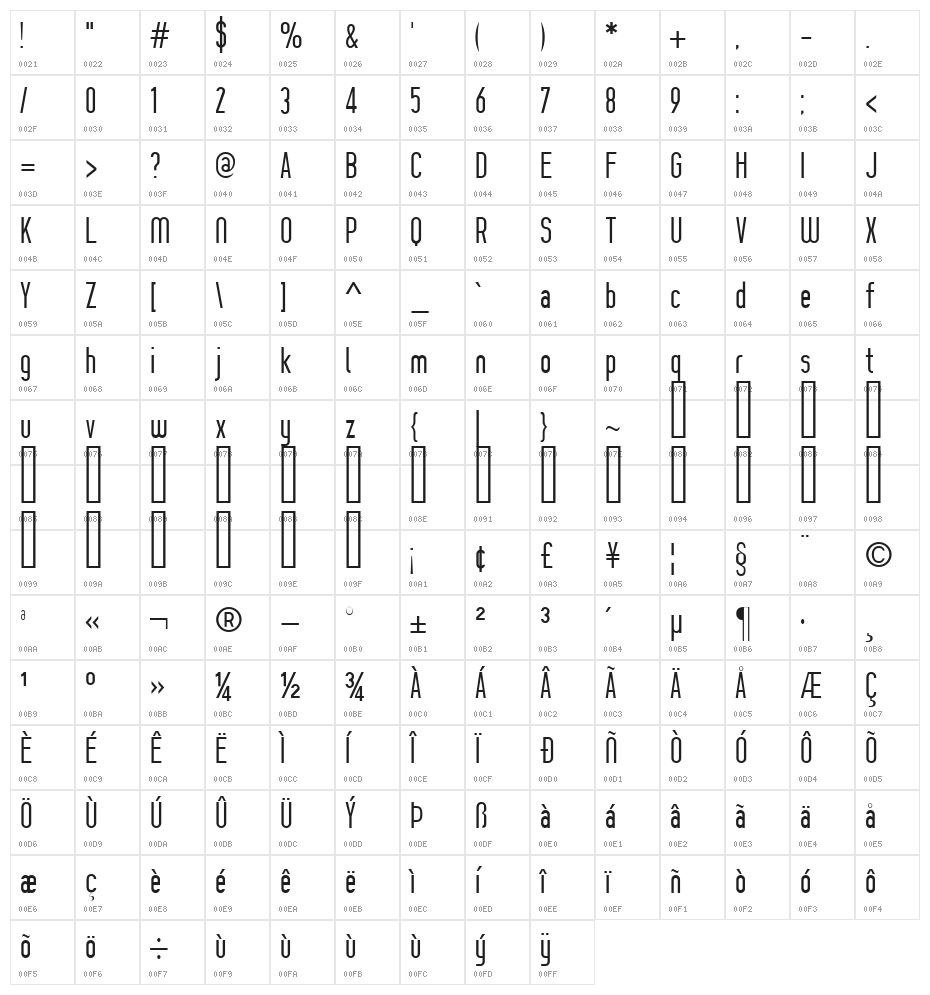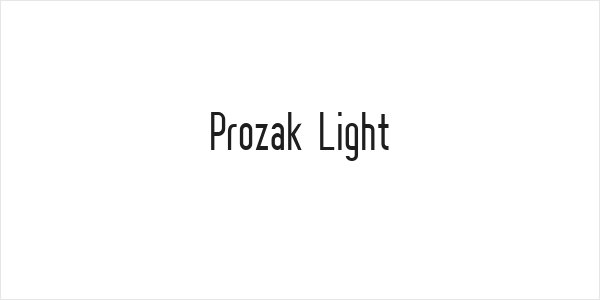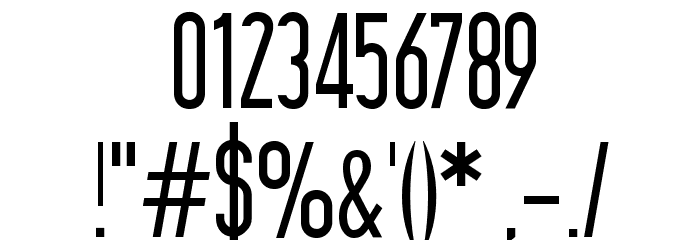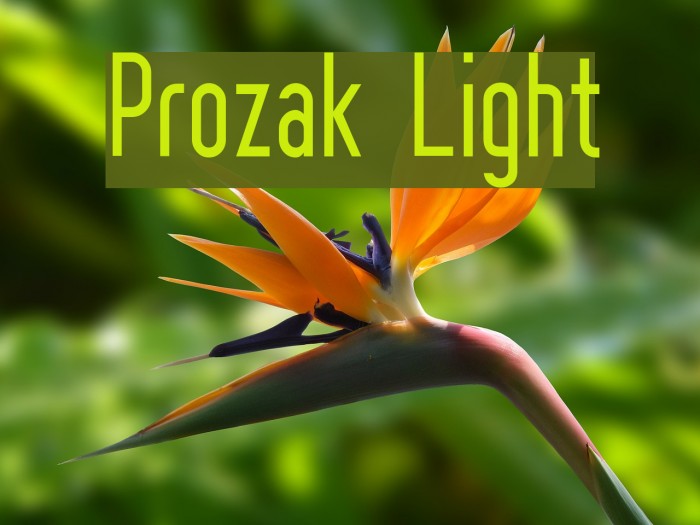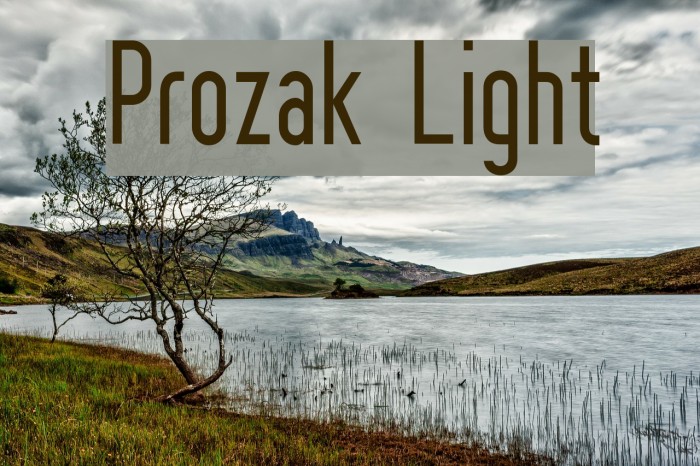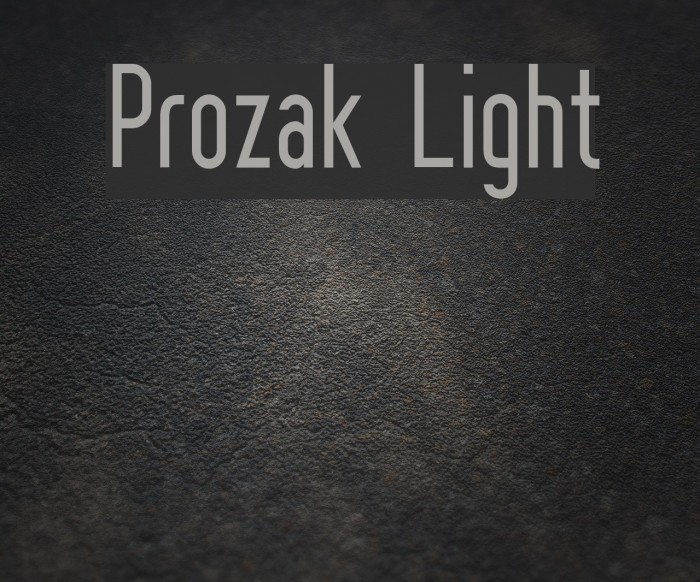
Prozak Light Font
Prozak Light Description
This font features a sleek and modern design with a tall, narrow structure that emphasizes verticality. The characters are evenly spaced, providing a clean and organized appearance. The strokes are consistent in width, contributing to a uniform look across all letters and numbers. Its minimalist style is enhanced by the absence of serifs, giving it a contemporary feel. The font is versatile, suitable for both digital and print media, and works well in various sizes due to its clarity and readability.